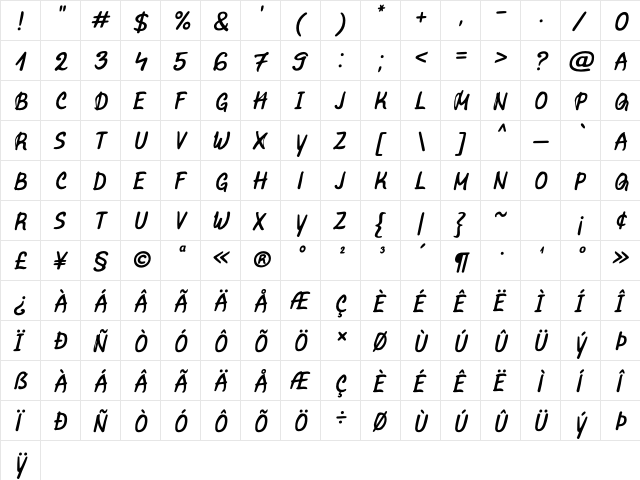
Marvelous Rex Italic Italic Font Preview
Marvelous Rex Italic Italic
Design Context for Marvelous Rex Italic Typeface
Marvelous Rex Italic is a composed and adaptable typeface that performs quietly and consistently across a wide range of design contexts. The dynamic lean of this cut emphasises speed and emphasis in any layout.
Pro Tip: Try Marvelous Rex Italic for annotation and caption copy alongside an upright companion — the contrast in angle creates a dynamic but ordered typographic system.